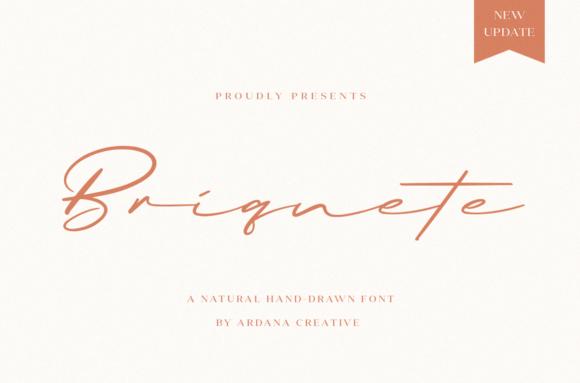
Meet Briquete Font - the elegance and charm personified! This enchanting script font will captivate your audience, leaving them breathless with its timeless beauty. Briquete is designed to evoke feelings of sophistication, making it the perfect choice for any project that demands attention.
Briquete's delicate curves and flowing lines add an unmistakable touch of class to your creations. Whether you're crafting a heartfelt prayer card or designing a stunning logo, Briquete will effortlessly elevate your work. Its versatility knows no bounds, as it seamlessly adapts to a wide range of projects, from elegant invitations to captivating social media posts.
Briquete is not just a font; it's an experience that transports you to a world of refined aesthetics. Its meticulously crafted characters exude a sense of luxury and grace, making every word a visual masterpiece. Unleash your creativity and let Briquete transform your designs into works of art that leave a lasting impression.
As a bonus, we've included a comprehensive collection of stunning glyphs and alternate characters, giving you the freedom to customize your designs and make them truly unique. With Briquete, the possibilities are endless, allowing you to create designs that speak volumes without uttering a single word.
So, embark on a journey of typographic excellence with Briquete Font. Its allure will leave you spellbound, and its versatility will empower you to create designs that capture hearts and minds. Elevate your projects to new heights of beauty and sophistication with Briquete today!